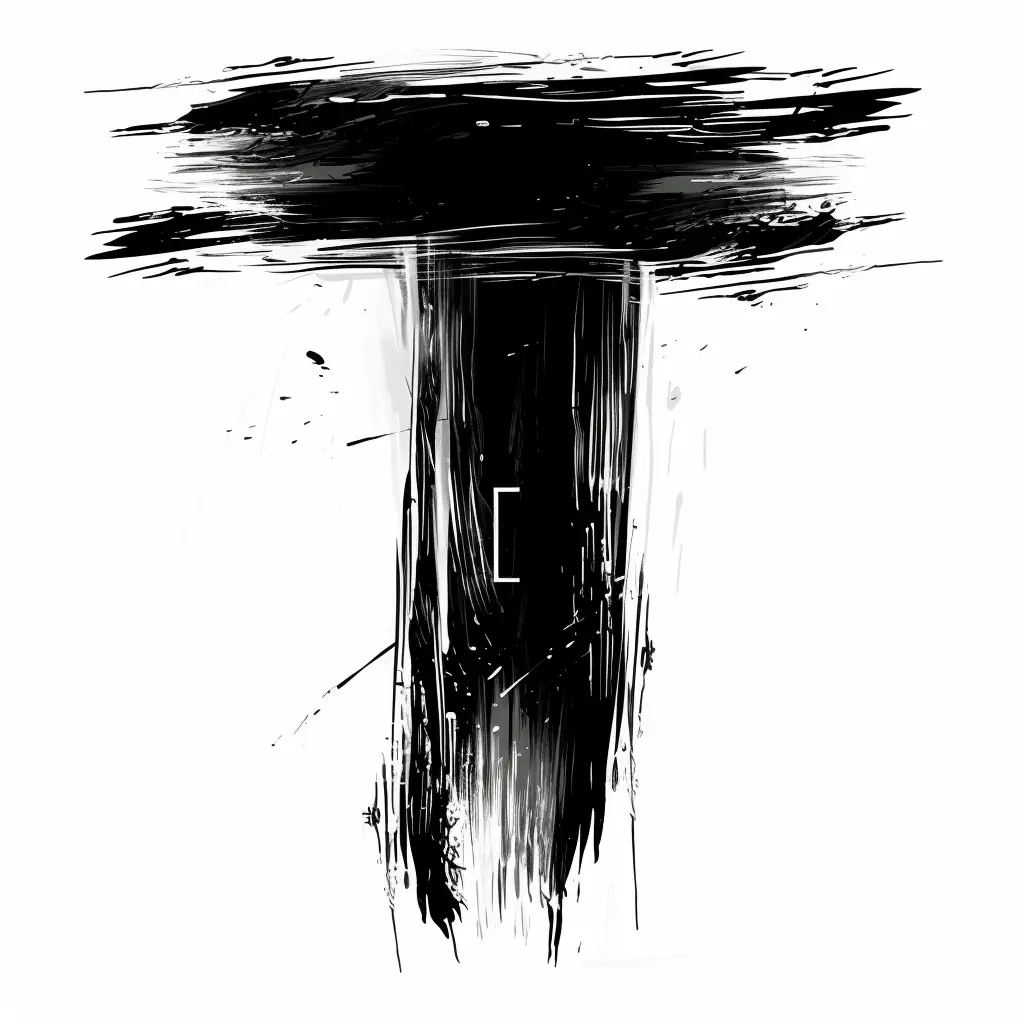
This abstract image features a bold, brushstroke-style depiction of a vertical structure resembling a column or tower, topped with a broad, textured black shape. Rendered in stark black and white, the composition uses rough, expressive lines and splatters to create a dynamic, painterly effect, with a small white bracket-like mark visible on the dark central form.